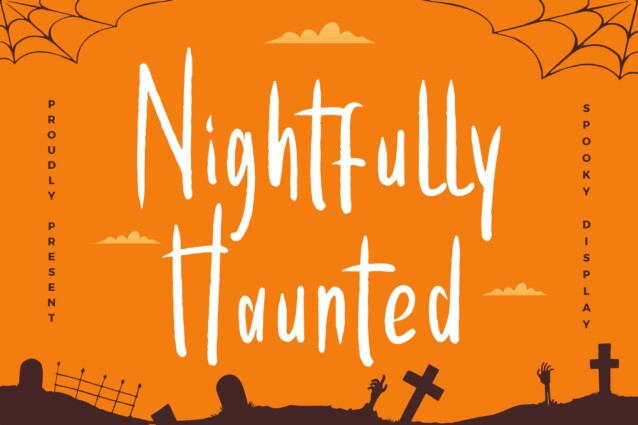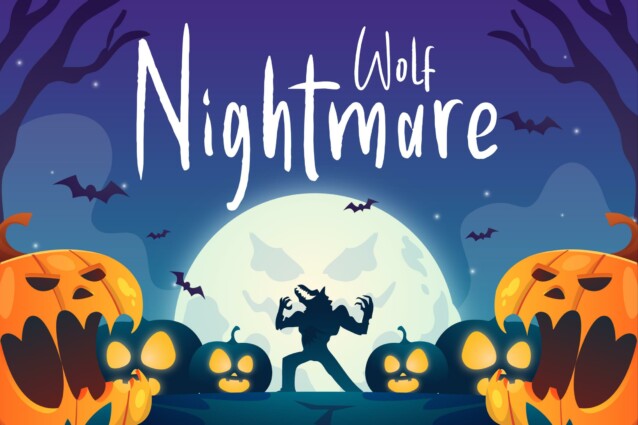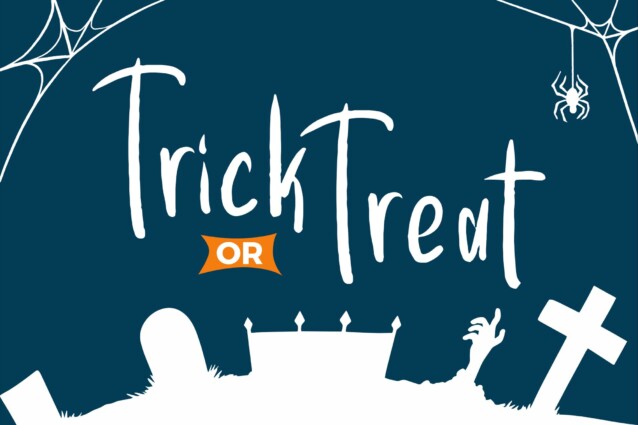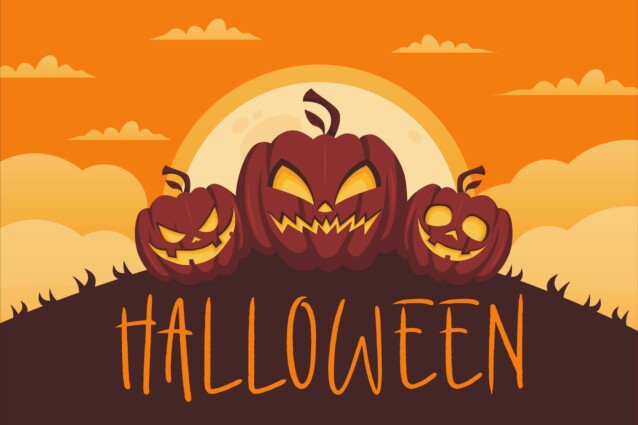
Nightfully Haunted Font
Nightfully Haunted Font is a spooky display font, suitable for any projects such as: logos, branding projects, homeware designs, product packaging, mugs, quotes, posters, shopping bags, t-shirts, book covers, name card, invitation cards, greeting cards, label, photography, watermark, special events, and all your other lovely projects that need a beautiful script taste.